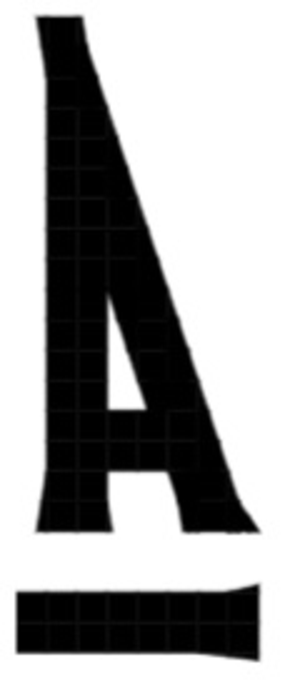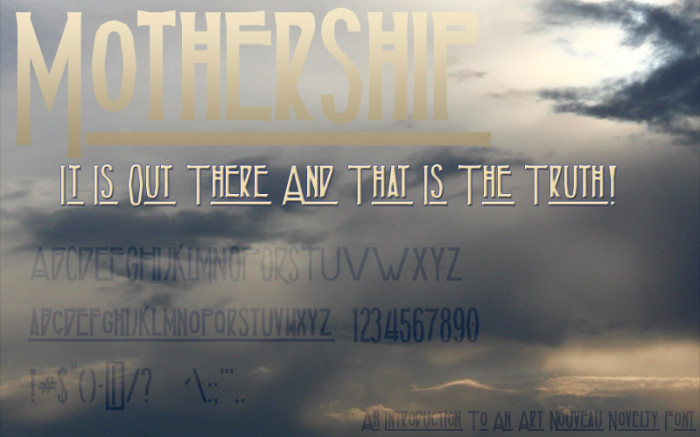
• Clone of Lead Balloon (by me).
This is sort of a functional font version of the Led Zeppelin font logo (in TTF).  The _ low line is actually an end cap for the L, Z & lowercase letter underlines.
Categories: Famous, Faux Curves, Logo Inspired, & Novelty
Type: Serif
Weight: Regular
Mega-sample above ^^^
LOL... crop off the top part and it becomes Led-Zepplin's discology, though. ;)
Changed the 'v' (it was bothering me), added an alt N and flipped a few alternates.
I'm still debating on whether or not to change out the P for an alternate P (and vice versa), one that is closer to the style of the D and R, but that would change the look very significantly. It would also be an extreme departure from the logo, which is why I haven't done it yet, and probably won't, since the logo was the inspiration for the font in the first place. But, chime in if you have an opinion.
I've decided to leave this one alone and call it done. Well, at least for now.
I made 'Dirigible' from a Mothership clone which was more in line with the font used for the 'Celebration Day' album release & promotion. It is more tightly styled with a more consistent design, where Mothership is trying to draw exclusively on the inspiration of the logo (while making a few minor adjustments so that it doesn't actually recreate the logo... though I wish I could make it more accurate I don't want to offend the greatest rock band of all time).
Anyways, the restyled 'Dirigible' font accommodates all those little issues I have with Mothership. So I am happy to finally let this one go.
I'm going to try and get this one polished off.  When two vowels are together, both have a flare at the end of the underline.  This was in order to replicate the logo, but I am finally going to nix those so that the font may actually become useful.
It has been such a long time since I created this, inspired by the Led Zeppelin logo, of course, but back then I didn't know what the font description text area was actually for and wound-up abusing that space.  Whoops!
Clone of Lead Balloon (by me).
Redesigned version that won't exactly replicate the logo of the greatest rock band of all time, but it looks pretty good, anyway. There are plenty of alternates, so if you don't like it, just clone it and switch out the version of the letter you like, or make your own.
I still have some things to do...
The spacing on the L is off.
I will make the q smaller... etc...
June 11th, 2014: OK... I think I fixed the spacing on the L and started playing with all my other projects when I noticed that Rob Meek made Mothership a Top Pick. YAY! LOL.
So, I made the Q smaller. Other than that, I'm not sure if I want to change anything else. You can clone it and I have all sorts of alternative characters, or you can make your own. Hmmm... I'm so excited, I'm repeating myself. It's my first Top Pick! ;)